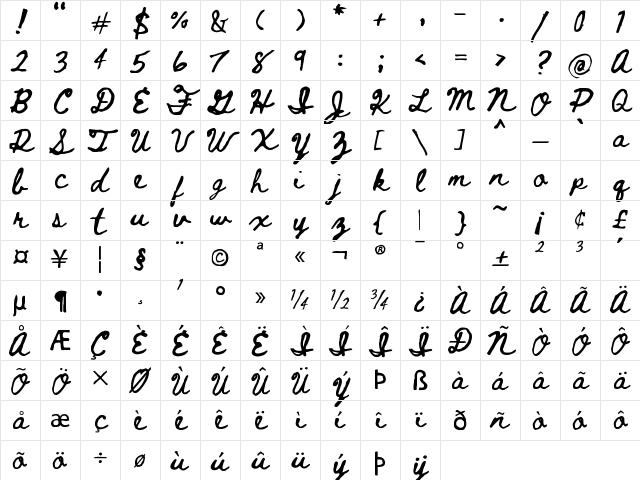
Beth Ellen 2 Regular
Designer: Alyson Diaz
Design Context for Beth Ellen 2
Beth Ellen 2 is a composed and adaptable typeface that performs quietly and consistently across a wide range of design contexts.
Pro Tip: Use Beth Ellen 2 in both headline and body roles to test its range before committing to a single application.